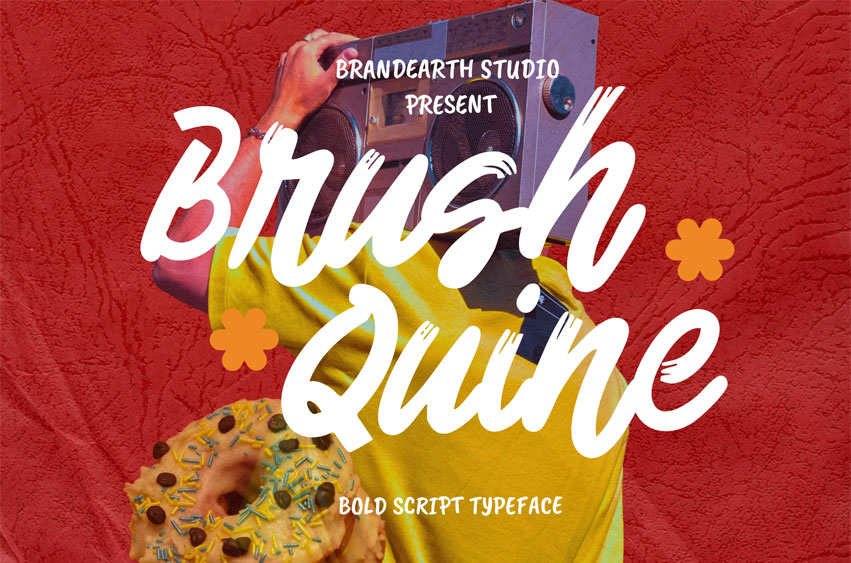
Brush Quine Font is a bold handwritten script typeface inspired by street lettering and expressive brush strokes. Designed with dynamic movement, textured edges, and confident curves, it captures a raw yet playful personality. The font includes uppercase, lowercase, numerals, and symbols, making it versatile for impactful display use. Its natural brush rhythm and strong presence make it perfect for eye-catching headlines and branding projects.
Relevance and Uses Cases Brush Quine is ideal for brands and designers seeking a strong, energetic, and youthful voice. It works perfectly for branding, music posters, social media graphics, YouTube thumbnails, merchandise design, café branding, event promotions, packaging design, and bold advertising campaigns that need personality and movement.